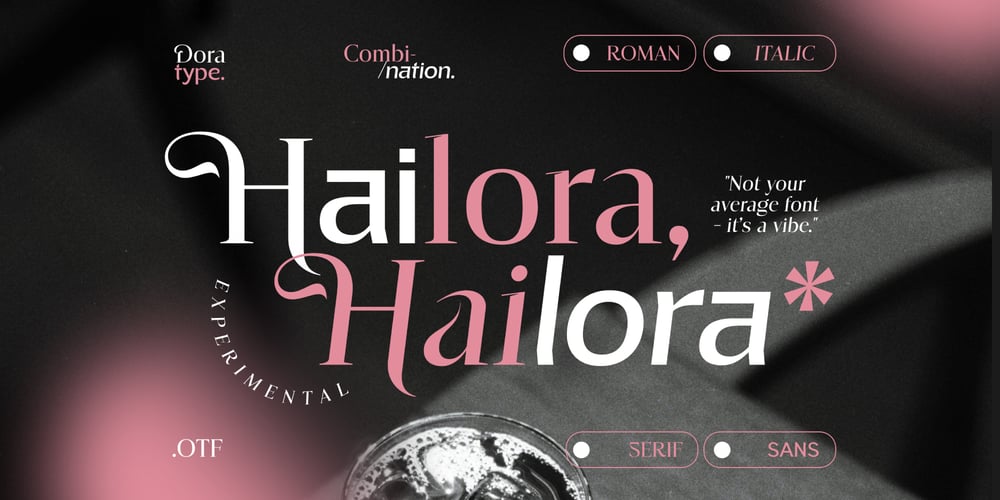
Hailora Font Family was designed by Zahratul Laila and published by Dora Typefoundry. Hailora contains 2 styles and family package options. Introducing Hailora is a completely new, creative & unique font duo. This combination also helps unite the two different styles of serif and sans serif wisely combined in one font where the serif makes it modern and the alternative sans font can create your attractive and effective typography design!What you will get: Uppercase Lowercase Numbers Symbols & punctuation Sans alternates Ligatures Multilingual support We highly recommend using a program that supports OpenType features and Glyphs panels like Adobe apps and Corel Draw, so you can see and access all Glyph variations.This type of family has become the work of true love, making it as easy and fun as possible.I really hope you enjoy it!If you have any questions or problems please contact email:doratypefoundry@gmail.comThank you Enjoy the font and go get creative ๐